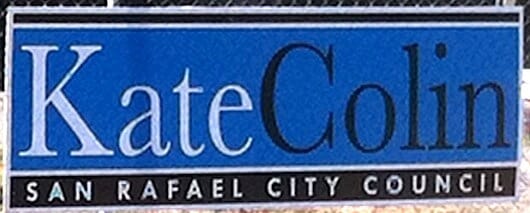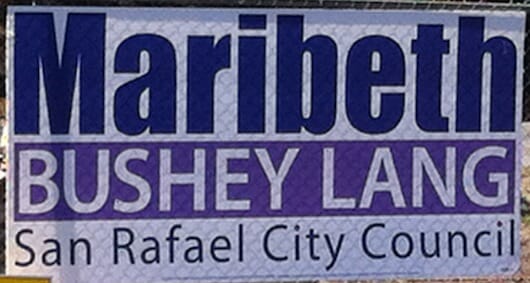
Can the fonts you choose have an effect on your author branding?
That’s the question that keeps popping into my head as I drive around San Rafael the last couple of weeks. We don’t have many things to vote on, but one is a race for a seat on the San Rafael City Council, being contested by Maribeth Bushey Lang and Kate Colin.
How do I know that? Their election posters are side by side throughout town, and you can see them on a chain link fence in the photo at the top of this post.
Fonts Convey Information, Mood, and a Sense of Style
Obviously, the candidates themselves are probably not responsible for creating the graphics for their posters. But campaigns these days do put a lot of thought into the branding they establish for their candidates.
At the highest level, in presidential elections, high-powered advertising and branding agencies are given this task, and some of their work is memorable. Probably the strongest visual brand to emerge from politics in the last 10 years is the Obama “O” that adorns much of his promotional material.
On a local level, which might parallel the efforts of indie authors, branding is conveyed by overall design, by color choices and, most forcefully, by the fonts selected.
Fonts have a long history due to the way typeface design has developed over the 500 years since its invention. Influences from the scribes who predated typography, to technical revolutions in papermaking and metallurgy, to fashions of the times have all had their effect on designs.
Today we have a bewildering number of typefaces to choose from, and working out how to use these fonts is one of the most difficult things to teach do-it-yourself authors.
Compare and Contrast
We can learn something about this from these campaign signs. Here’s the sign for Maribeth:
Some of the ways this typography communicates:
- The top line is set in a very heavy, condensed sans serif typeface in upper and lower case letters, and is meant to convey strength.
- The second line is set in a bold, normal sans serif, in all caps. This treatment might be seen to express clarity and precision.
- The third line is set in a light sans serif typeface, once again in upper and lower case. This kind of type might be seen on a corporate report or sci-fi novel.
To my eye, this sign is fighting against itself. It’s as if the designer couldn’t decide which treatment he liked, and the effect of switching from one style to another 3 times in 3 lines of type expresses confusion more than anything else.
The sign also uses 3 colors for the 3 lines as well, with dark blue, white on purple, and black for the bottom line. Does that say “consistency” to you?
Isolating the second line with Maribeth’s middle and last name also emphasizes some unfortunate associations, like “What’s a bushey lang anyway?”
The solidity of the large stripe in the middle, which might give this sign some gravitas is undermined by the very weak, upper and lower case type below it. You can’t create solidity on a foundation that’s weak.
Okay, here’s Kate’s sign:
This designer had a completely different approach, using exactly the same elements.
- The name is set quite large, using a classic serif typeface in upper and lower case. Some contrast is introduced by coloring the first and last name differently.
- Colors are unified, with black type and white on a black background tying the upper and lower parts of the design together.
- The bottom line, stretching across the entire sign, is set in letterspaced capitals in a sans serif typeface that’s clean and very readable at a small size.
Everything about this sign says “competence,” “organized,” and “tasteful” at least to me. The design balances well, with the one large element instantly readable, and supported by the solid, block-like base of the capital letters running along the bottom. This forms a solid foundation on which the entirety of the sign balances.
I know nothing about either of these candidates or their party affiliations. But, just from driving by them every day, I’ve already formed associations with each of the people behind the signs, and these associations are constantly reinforced.
In one case, it might be summarized as boldness but without a good foundation, and a confusion about the details. In the other, it’s a classical, balanced, holistic approach that’s emphatic without shouting.
Which would you vote for?
As indie authors, we should think about the kind of effect our font choices have, and whether they create associations that will work in our favor.
Hello Joel
I’ve read a heap on fonts, and I wonder if there’s any studies that have been done on things like this. Generally, regular folks (not in the graphic or book design fields) have very little to say about typefaces and teh effect of them. Just wondering.
Colin, I think a lot of people have written about this. Although “regular folks” don’t notice fonts the same way a designer would, I believe the fonts and other elements of graphic design do have an influence on people, perhaps unconsciously.